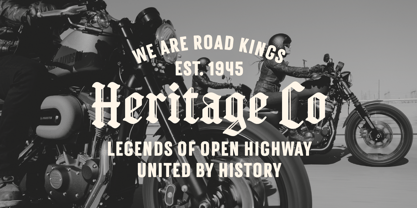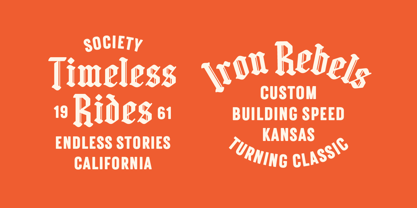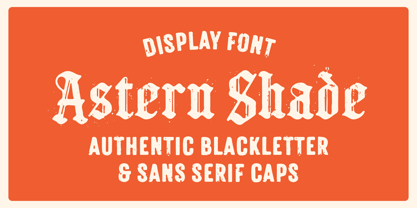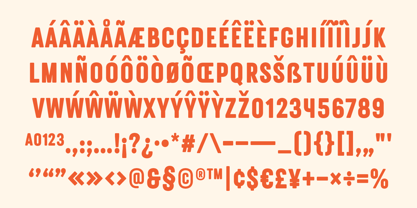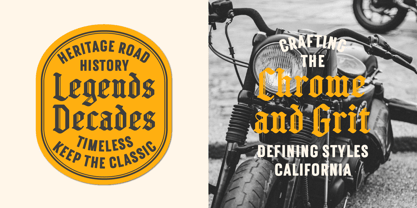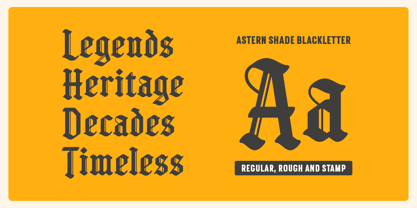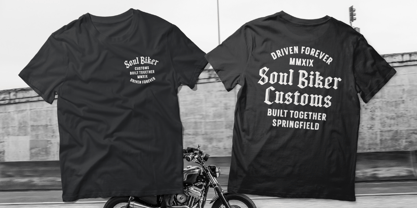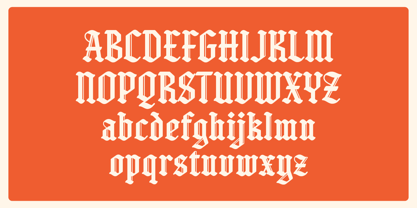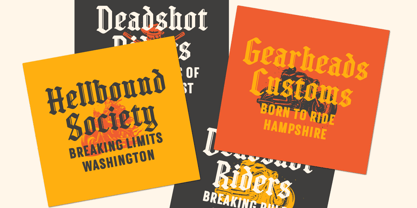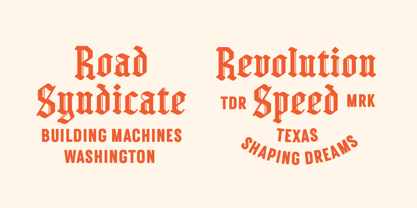
Astern Shade
The Astern Shade Font Family was designed by Edi Gunawan and published by Edignwn Type. Astern Shade contains 6 styles and family package options.
Astern Shade combines the strong character of blackletter and sans serif fonts in a versatile design, featuring all-caps characters for a striking look. With three unique styles (regular, rough, and stamp), this font is perfect for logos, branding, posters, and more. Ideal for retro and motorcycle-themed designs, Astern Shade adds a bold, vintage edge to your creative projects.
Astern Shade includes :
- 6 fonts (blackletter and sans serif)
- 3 style typefaces (regular, rough and stamp)
- Uppercase, lowercase, numeral, symbol and punctuation in blackletter font
- All-caps, numeral, symbol and punctuation in sans serif font